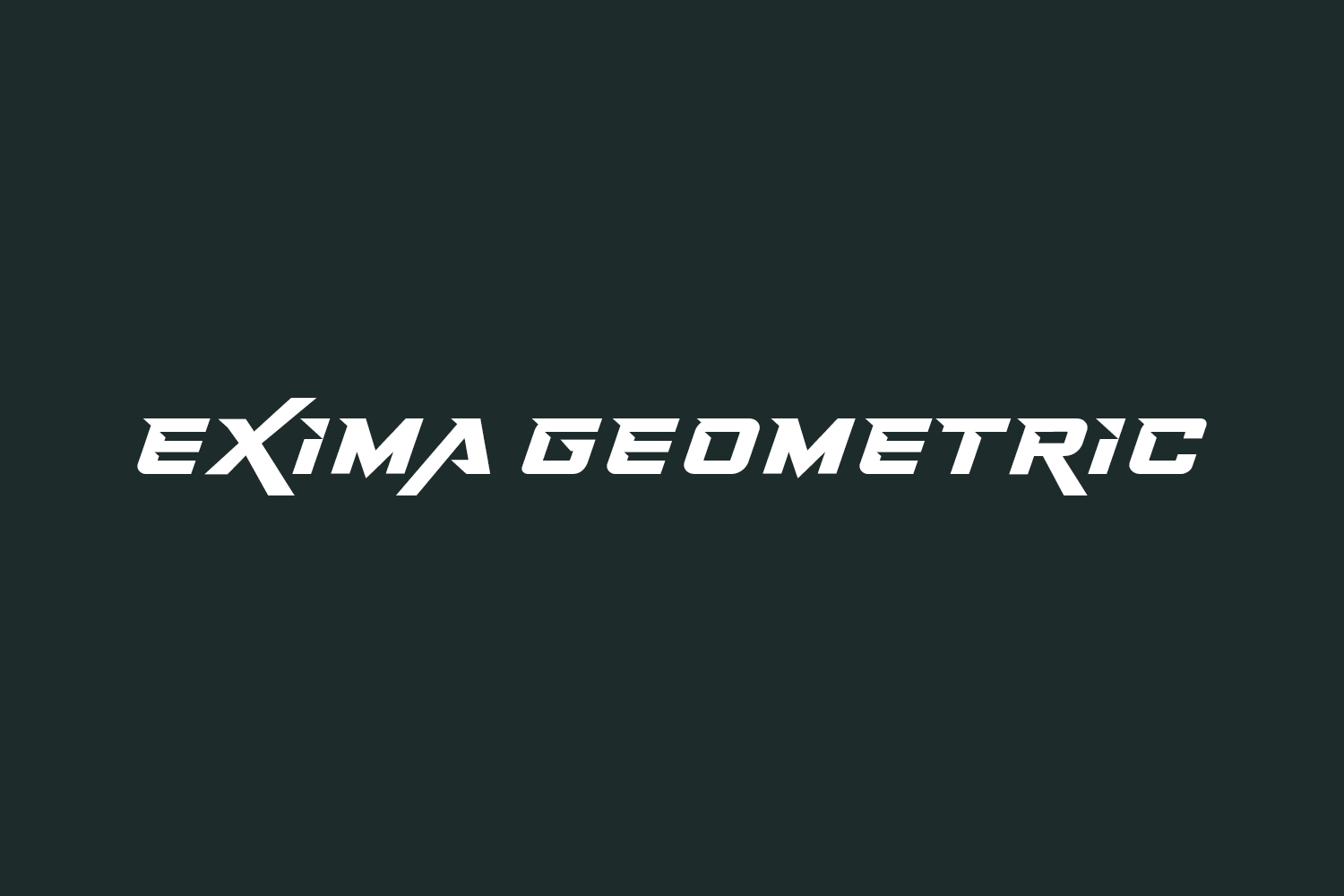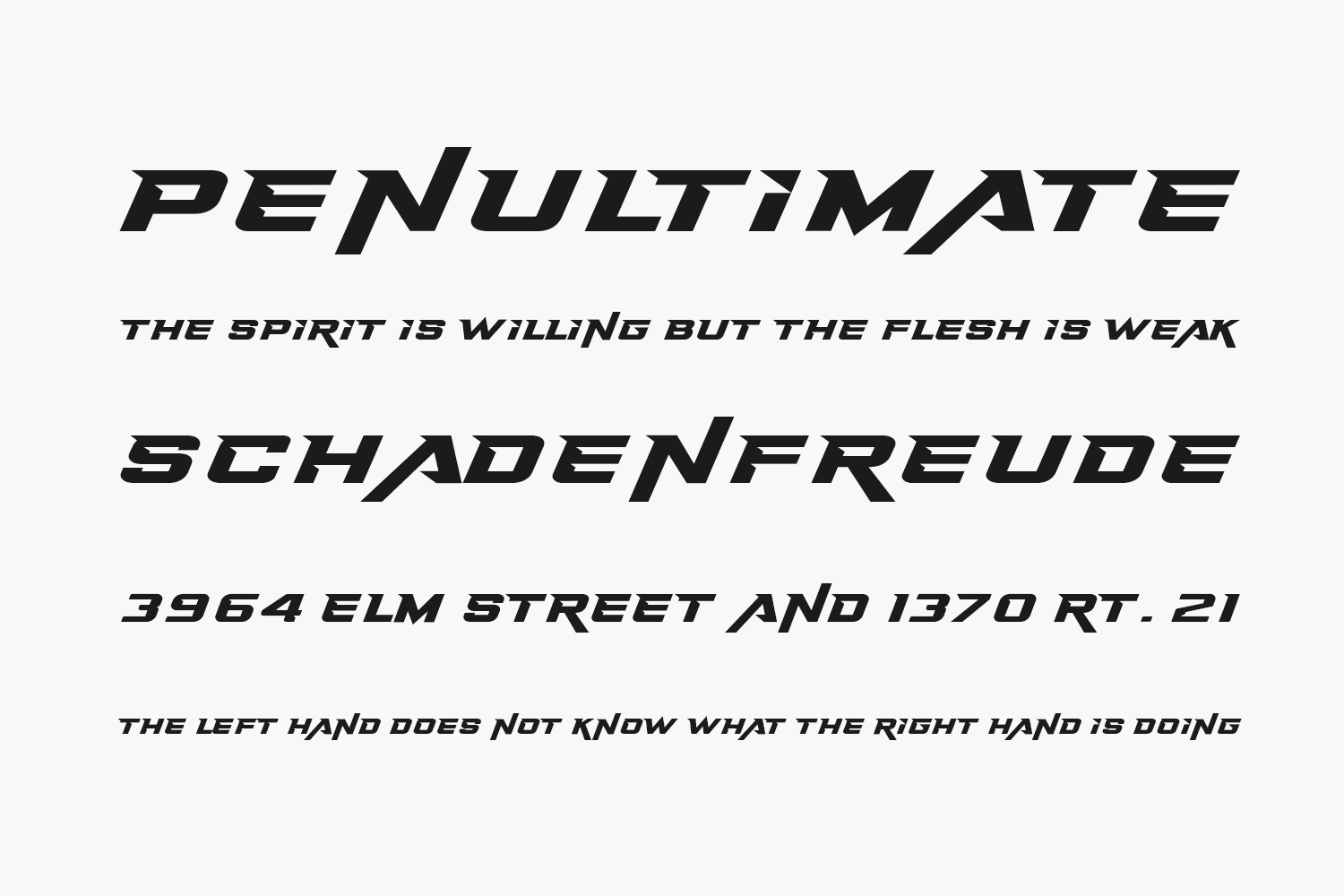
Exima Geometric Free Font is a geometrically shaped and bold display font. It will look stunning on any poster, flyer, or print. Use this font for your designs and explore its endless possibilities.
Designed by 177Studio